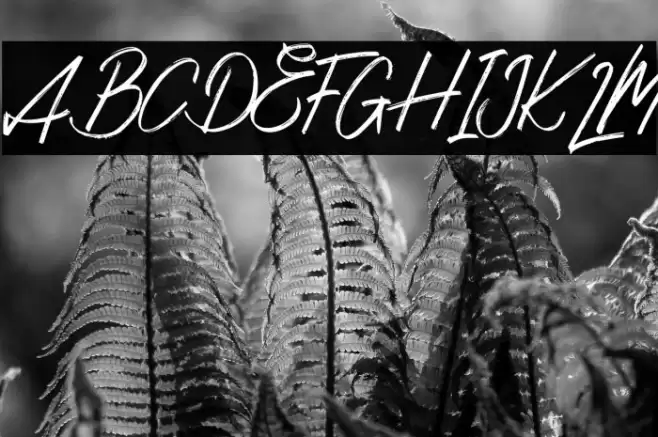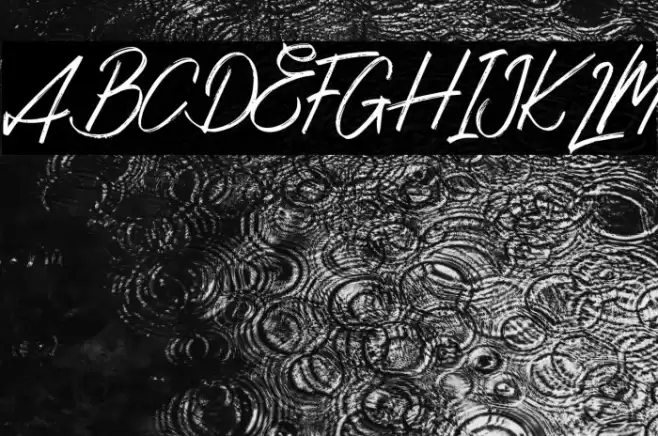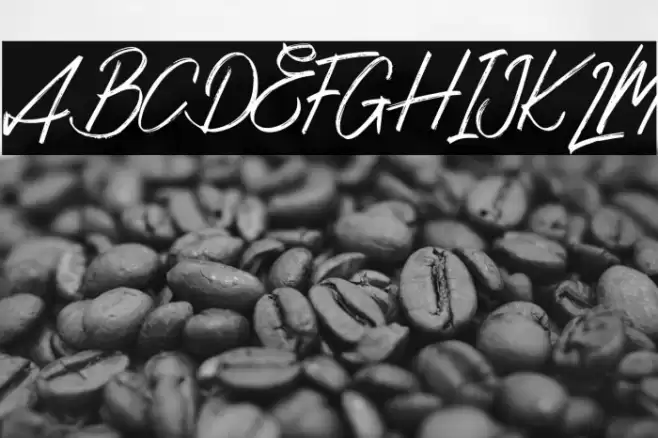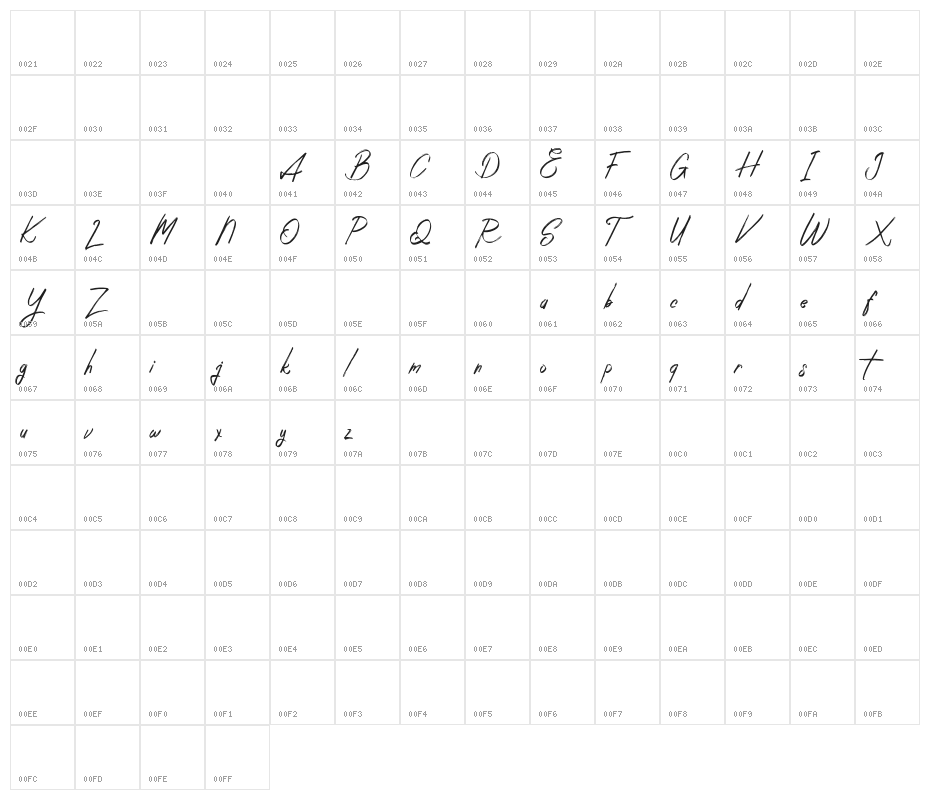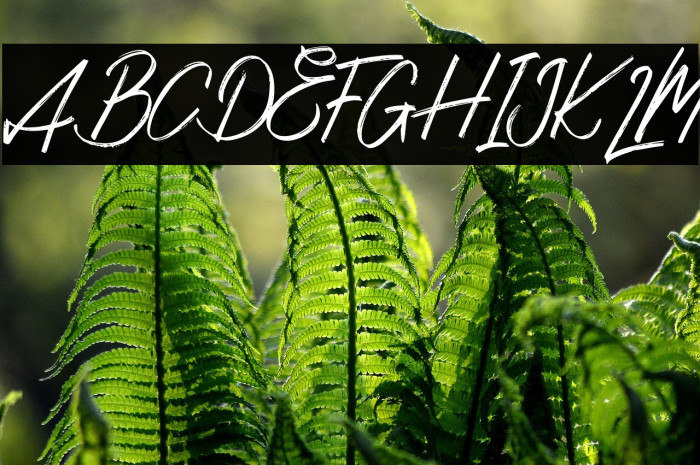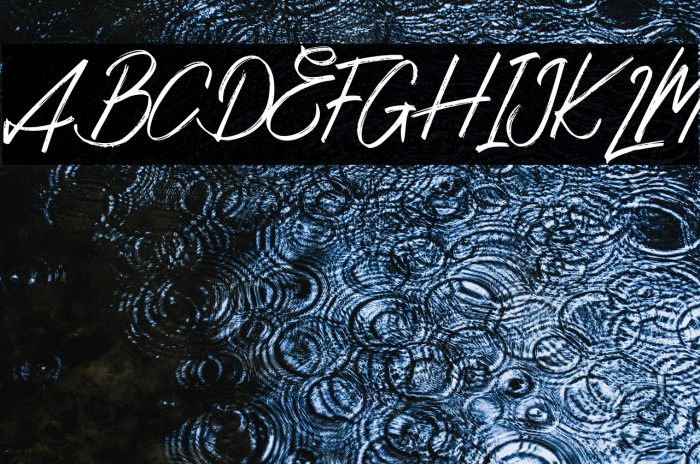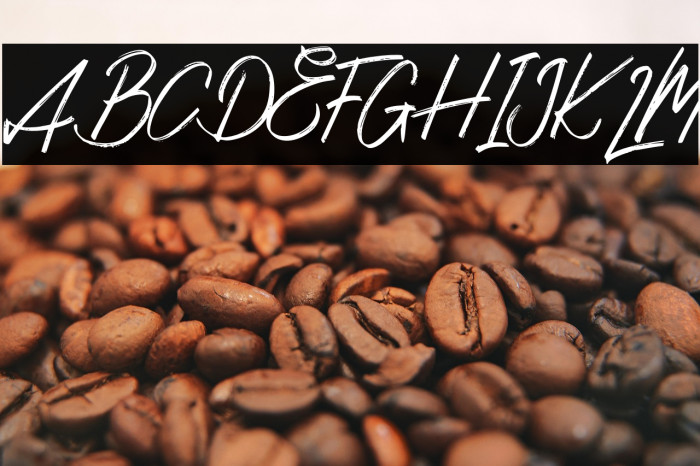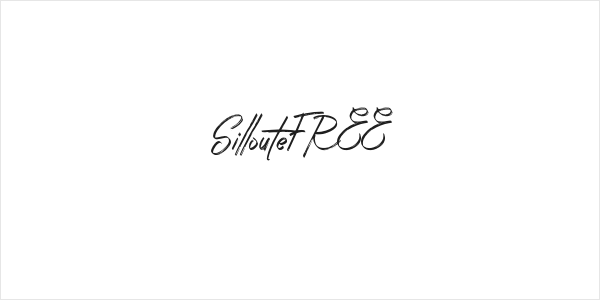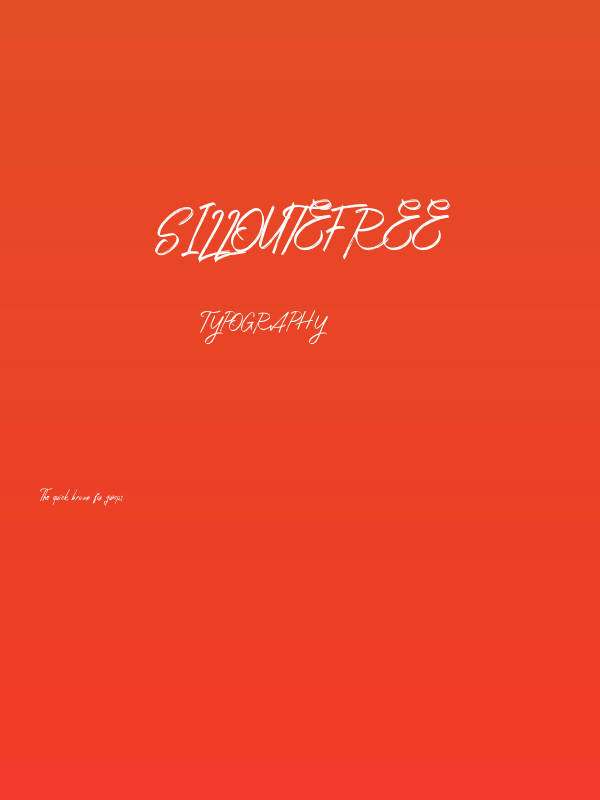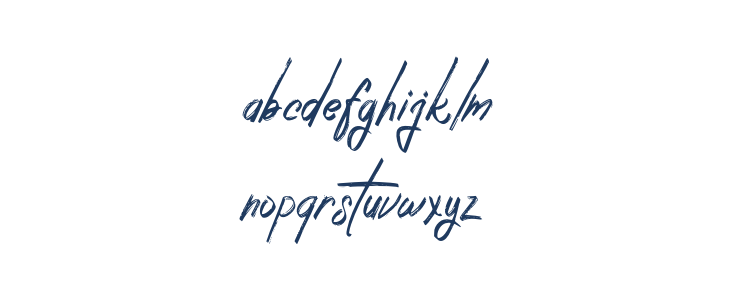
SillouteFREE Font
SillouteFREE Description
This font features a dynamic and expressive script style with a handwritten appearance. The letters are fluid and connected, creating a sense of movement and elegance. The strokes vary in thickness, adding a lively and artistic flair. The uppercase letters are bold and prominent, while the lowercase letters maintain a consistent flow. The overall design is both sophisticated and approachable, making it suitable for creative and personal projects. The font's unique character is enhanced by its slightly irregular baseline, giving it an authentic handwritten feel.
A dynamic and expressive script font with a handwritten style from Uncategorized fonts.
- Font: SillouteFREE
- Proposed Projects: Ideal for wedding invitations, greeting cards, personal branding, and artistic projects.
- Use Case: Logos, Headlines, Invitations